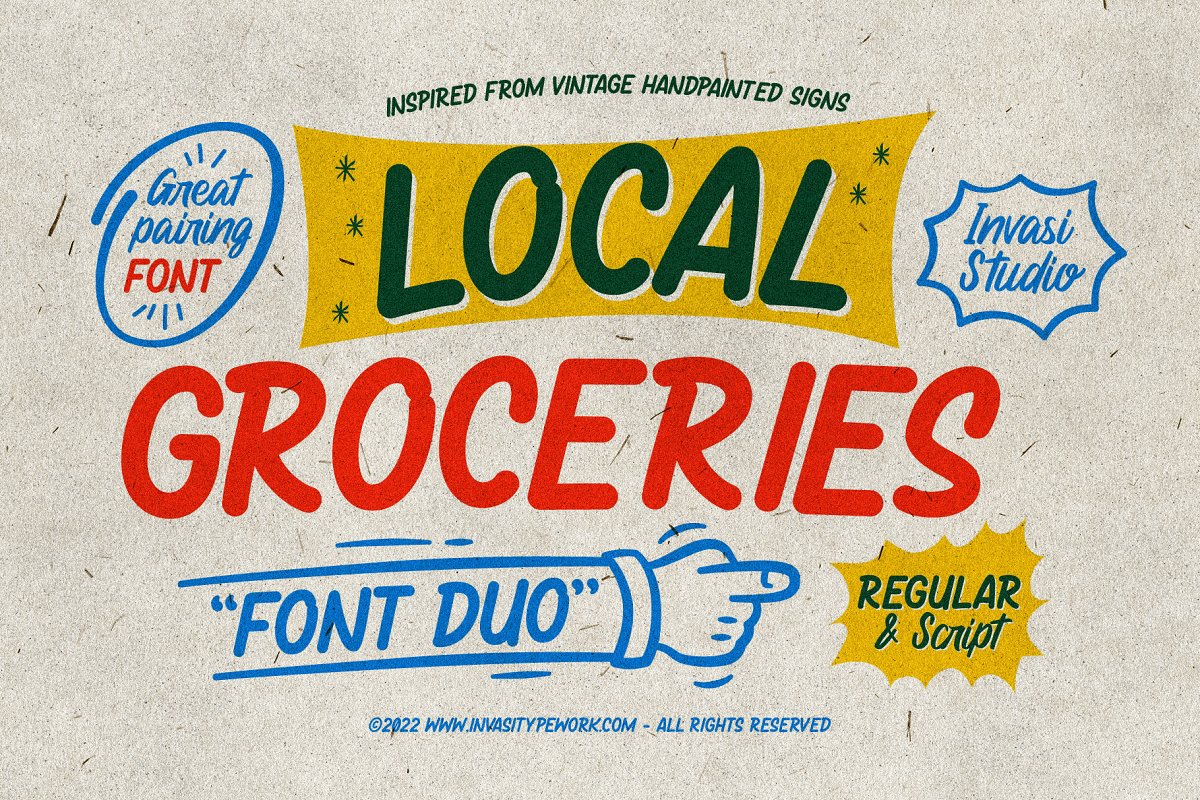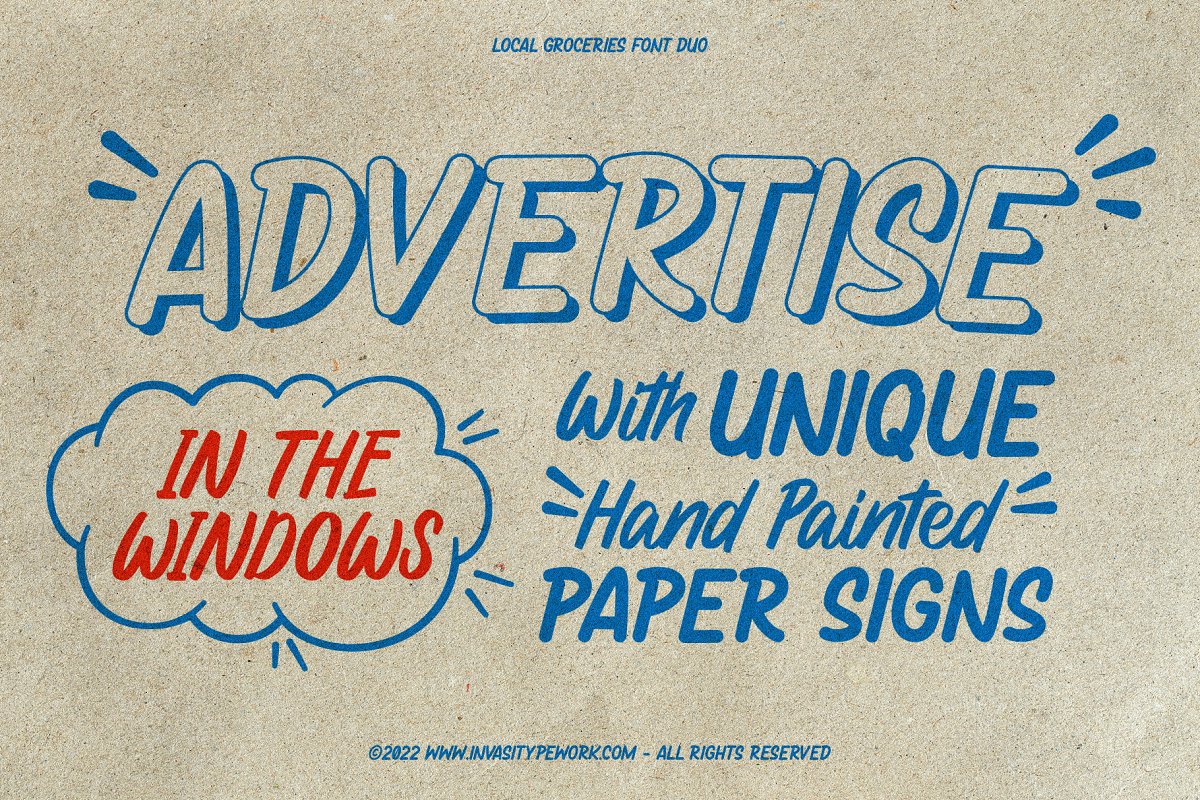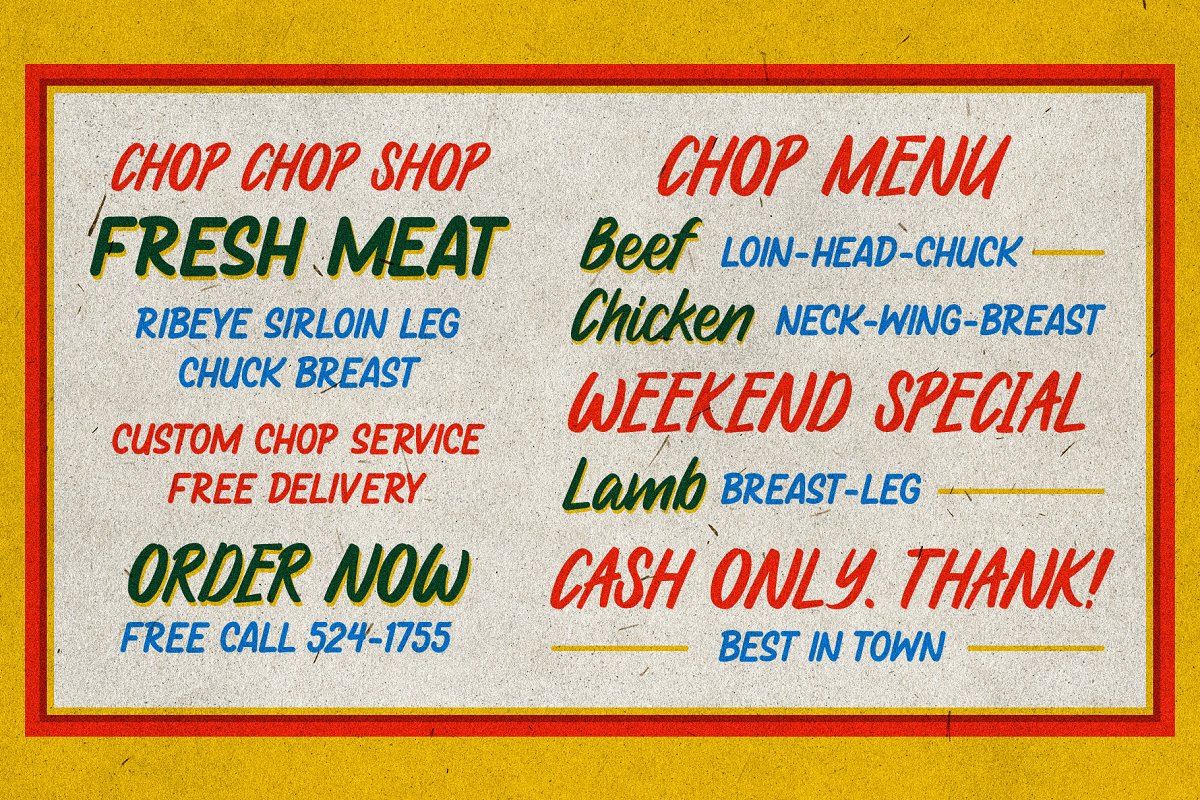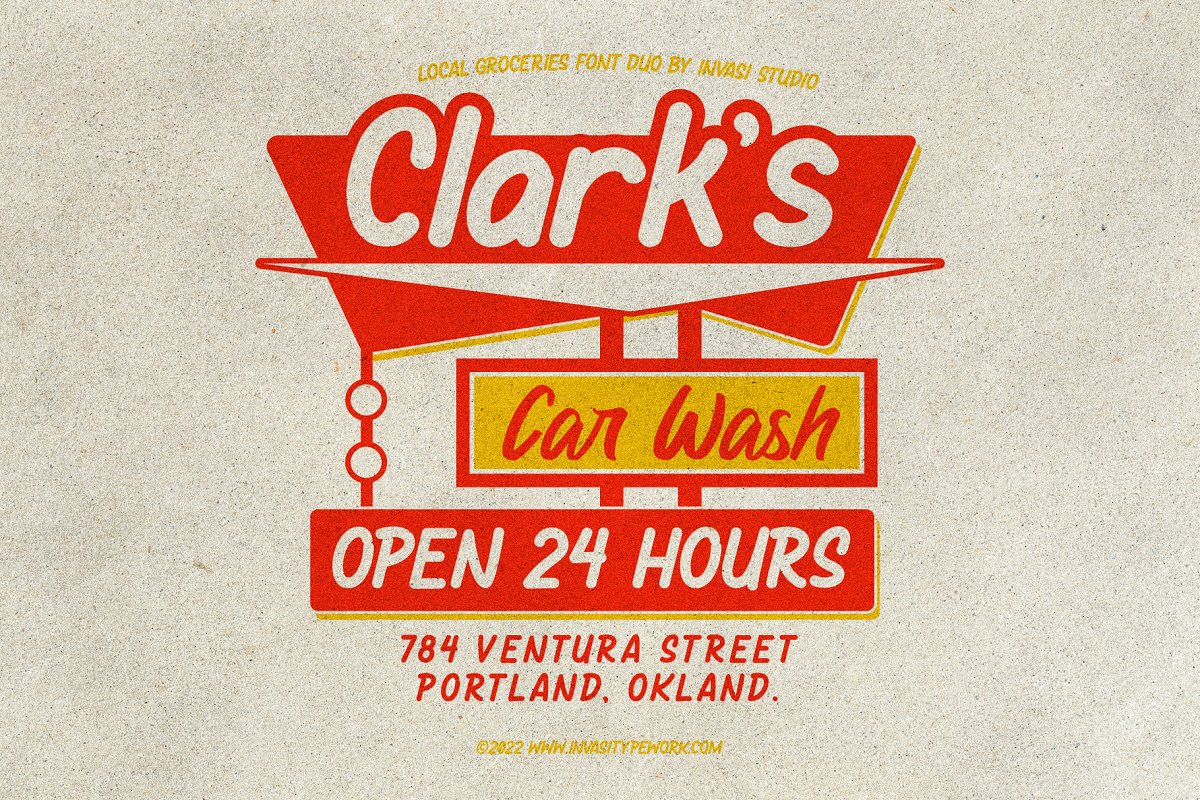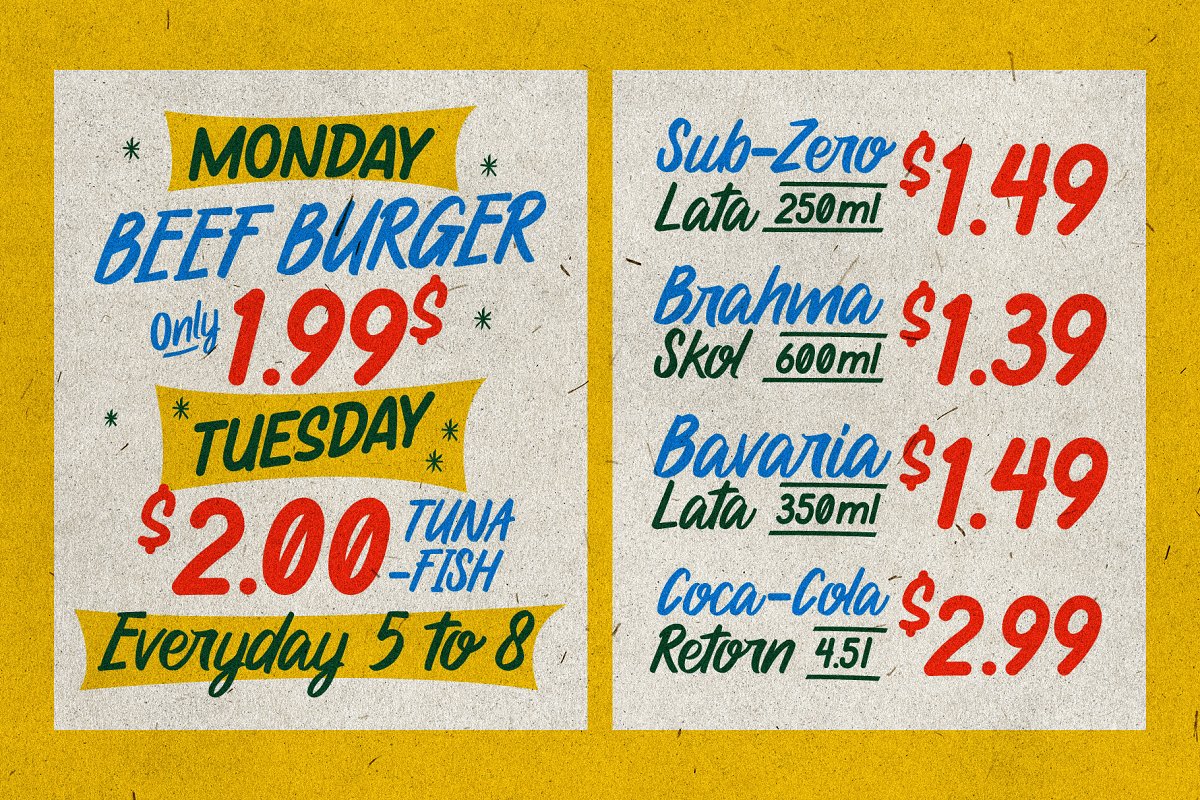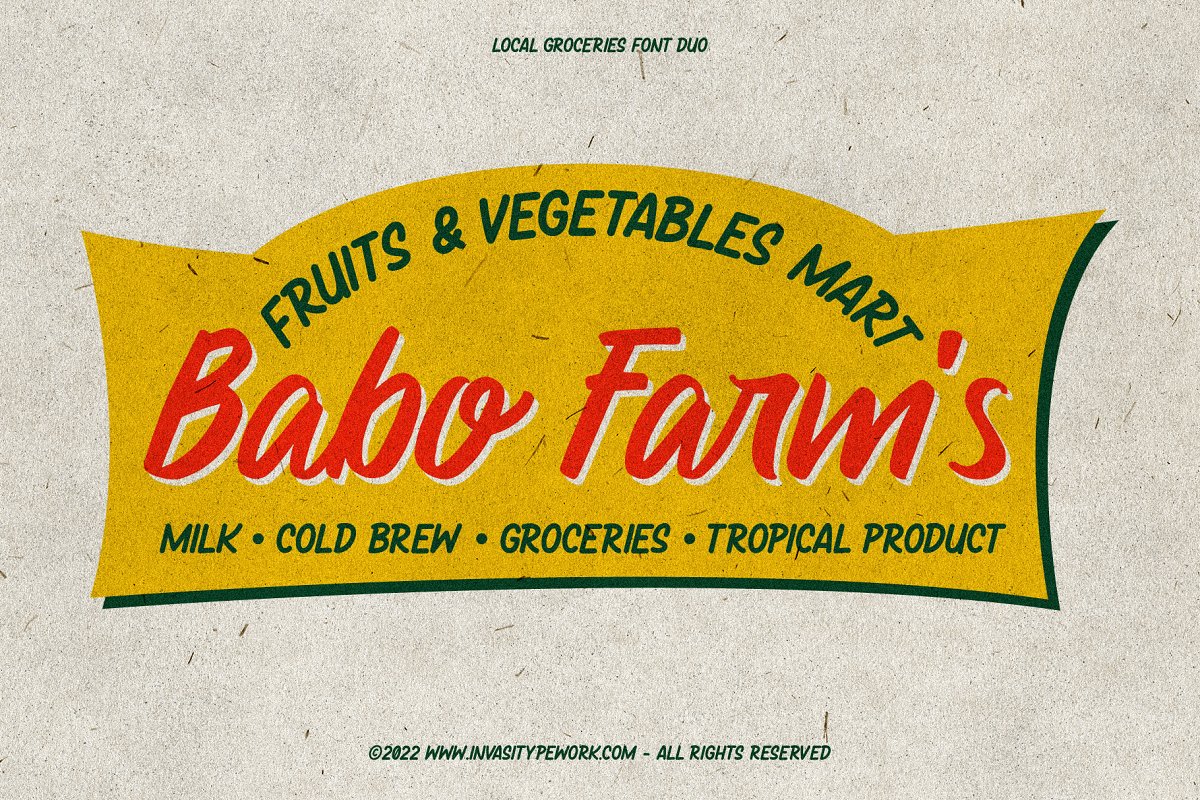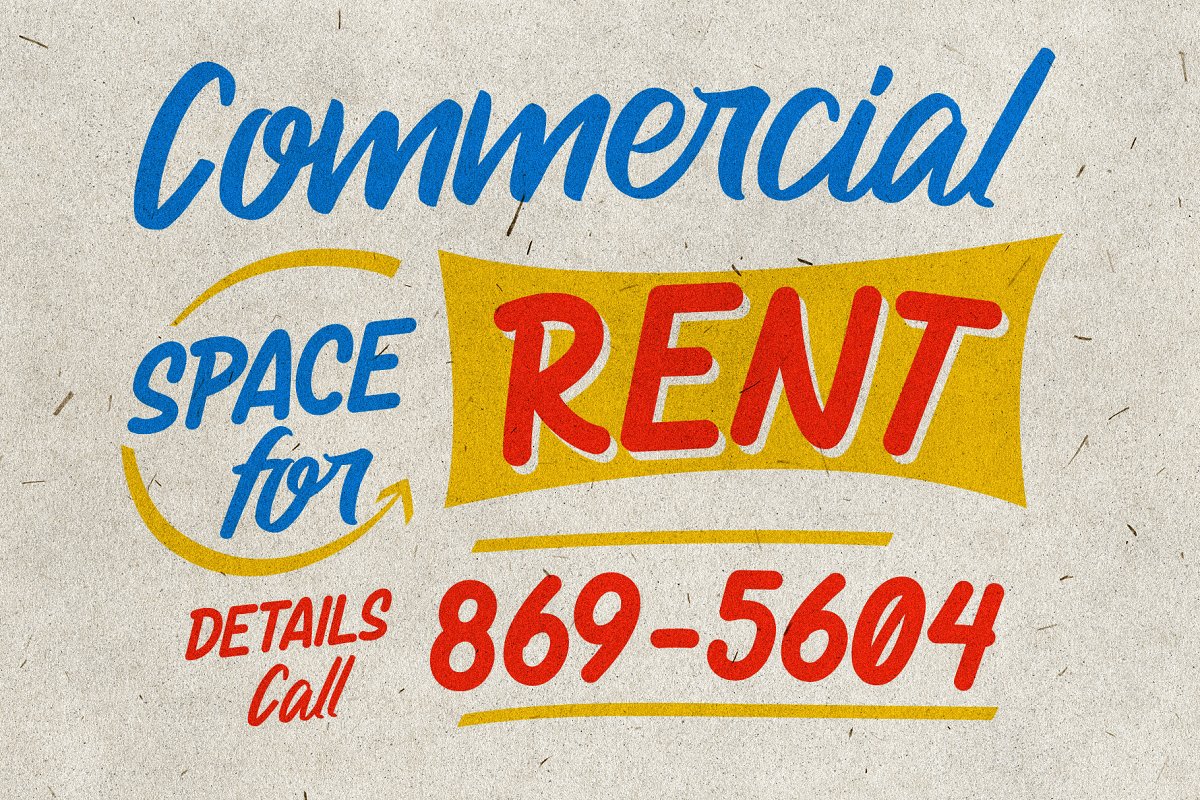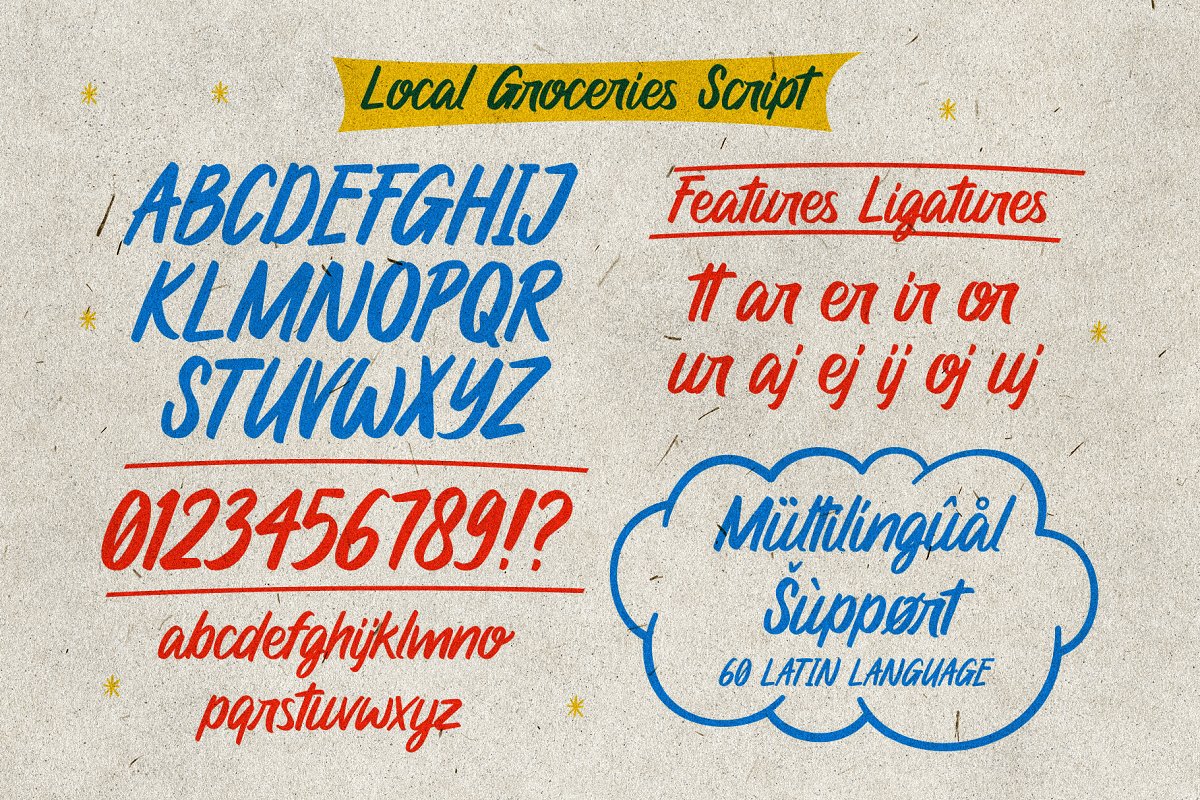
About the Local Groceries Vintage Sign Duo
Inspired by the hand-painted paper signs typically seen in grocery stores during the 1920s to 1970s, This is now available in a digital format that still has the appearance and feel of hand-painted letters, Take a look at a few samples in the thumbnails to see what you can do with them, Local Groceries comes with a combination pairing font, It combines both regular and script fonts
Local Groceries is suitable for vintage and contemporary marketing, branding, merchandise, and packaging designs, Features:Uppercase & LowercaseNumerals & PunctuationAlternates and LigaturesMultilanguage Supports 60+ Latin based languagesWhat you get:Local Groceries Script (OTF, TTF, WOFF, WOFF2)Local Groceries Regular (OTF, TTF, WOFF, WOFF2)To access the alternate glyphs, you need a program that supports OpenType features such as Adobe Illustrator CS and Adobe Indesign